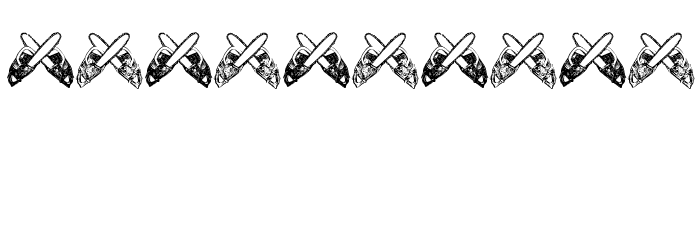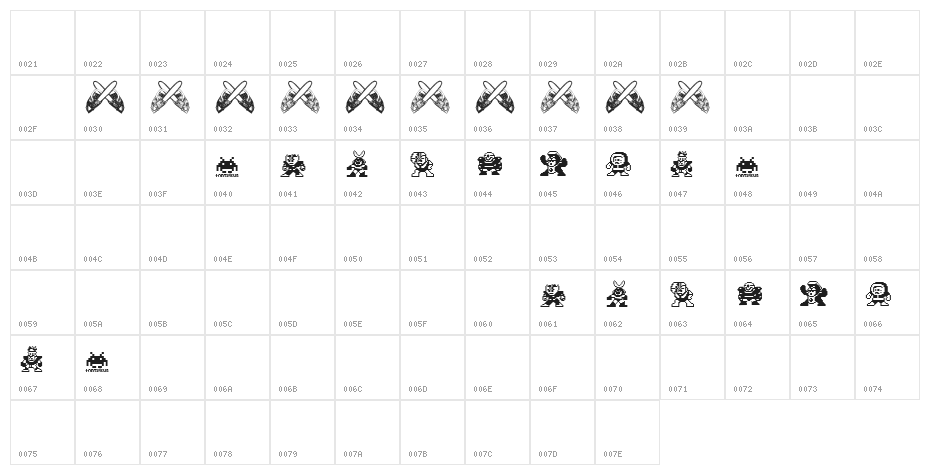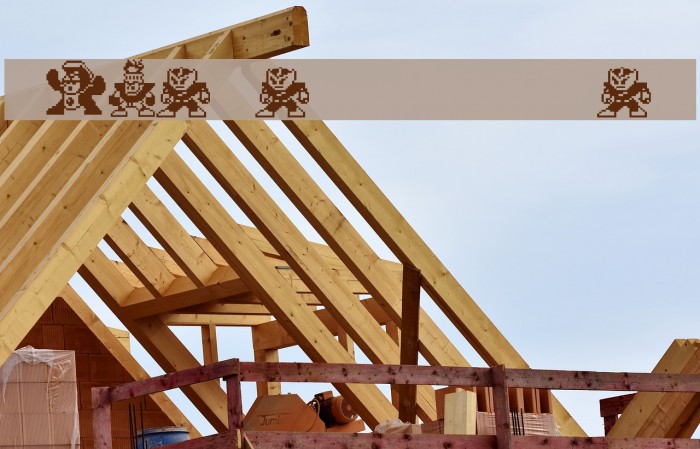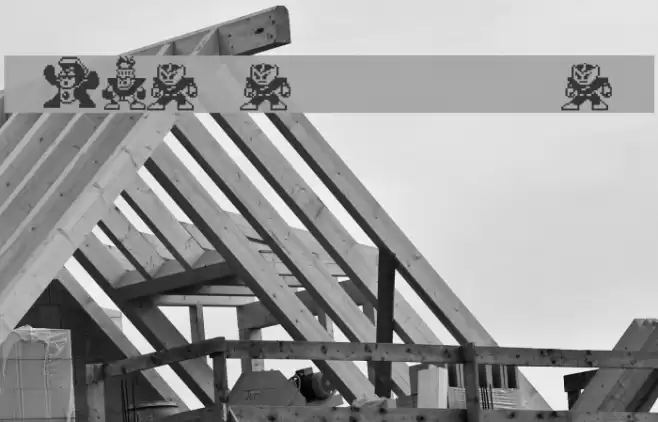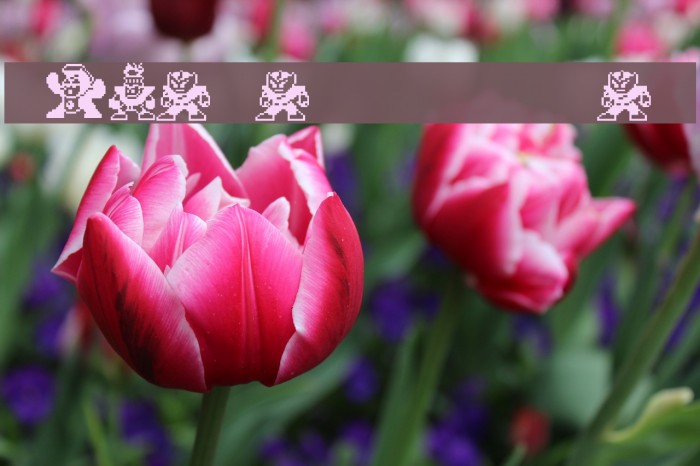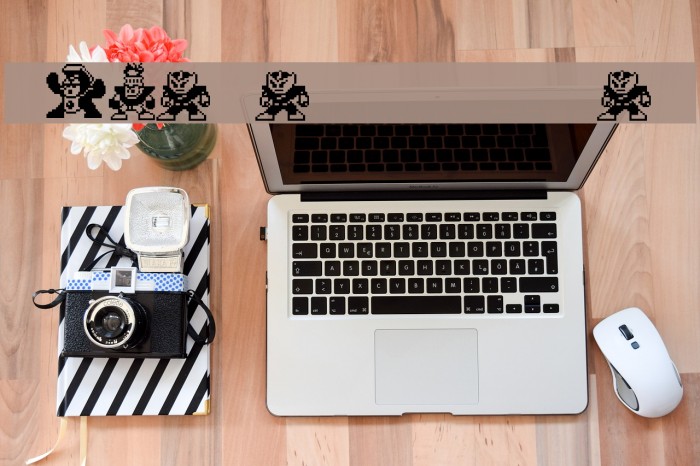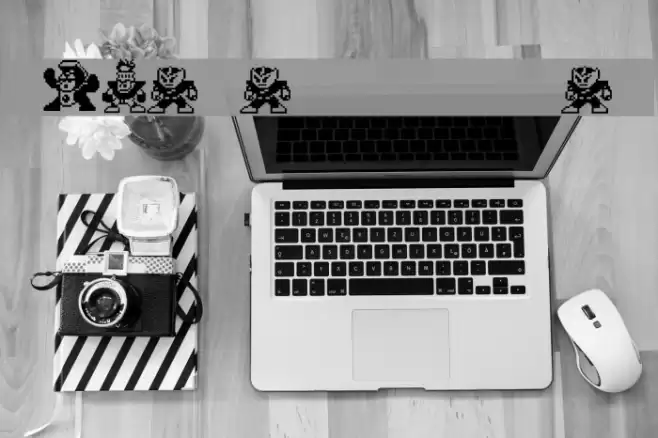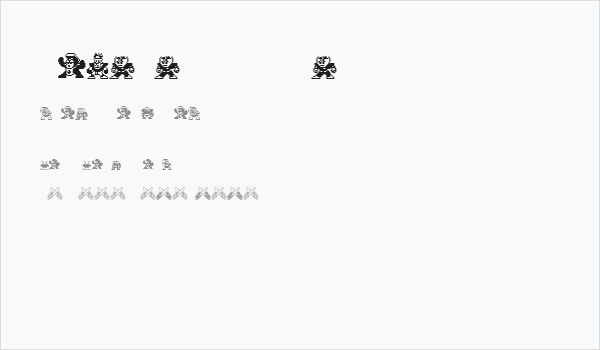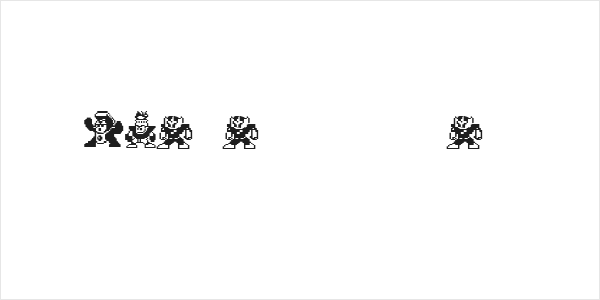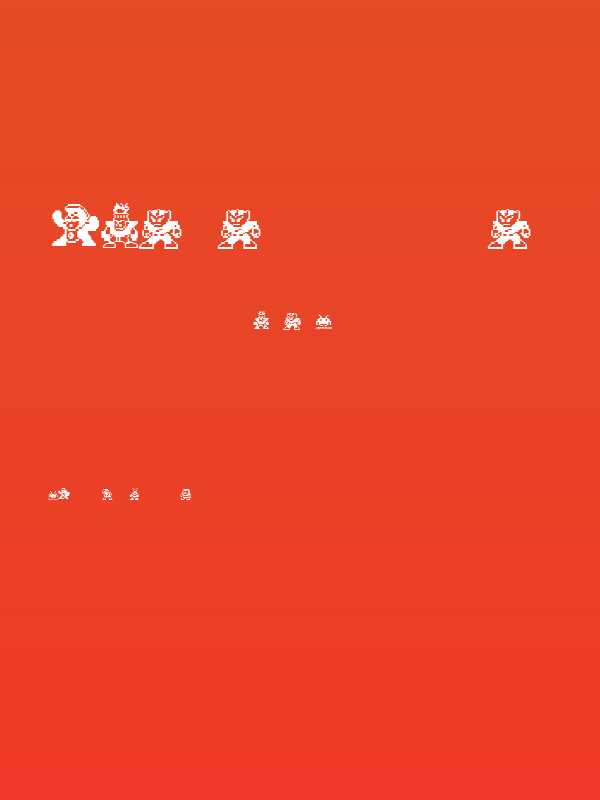
MegaMan Villanz Font
MegaMan Villanz Description
A decorative bitmap font composed of pixel art characters inspired by classic video game villains, each letter and number represented by a unique sprite. The symbols are also rendered as detailed pixel icons, maintaining a retro gaming aesthetic.
Overall StyleDecorative, Retro, Pixel Art
Use CaseHeadlines, Logos, Posters, Themed Graphics
Proposed ProjectsRetro game titles, themed party invitations, fan art, posters, or any project needing a nostalgic video game vibe.